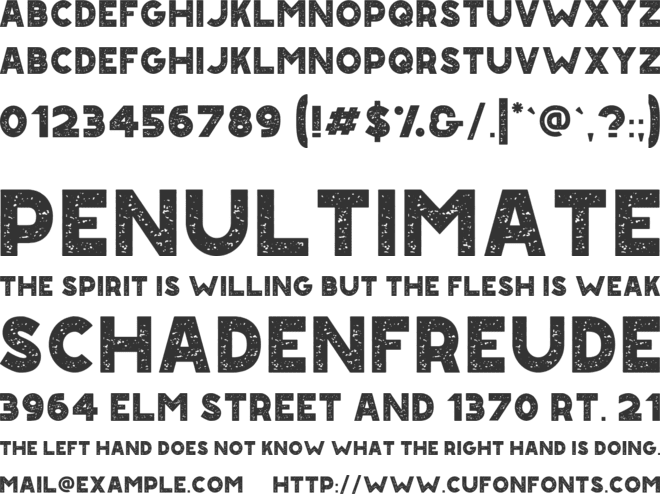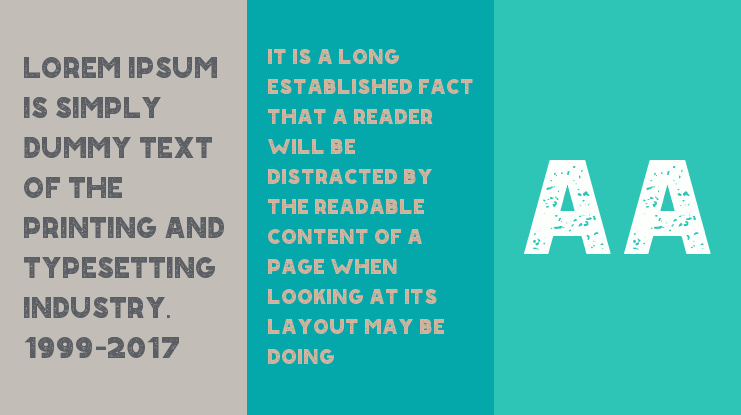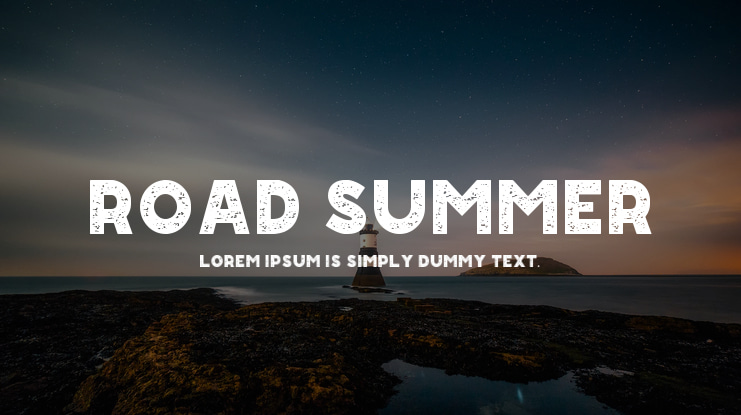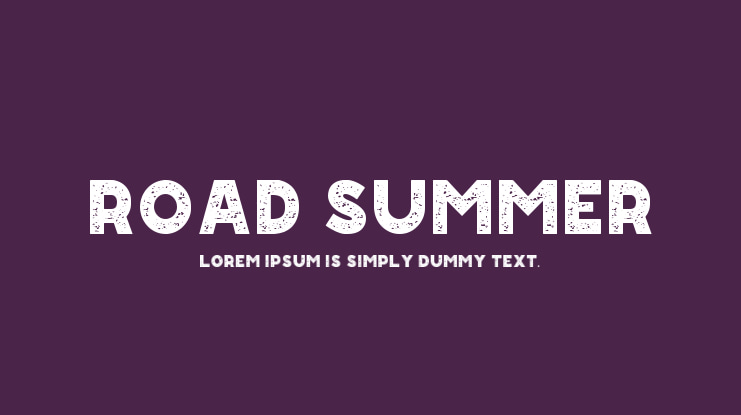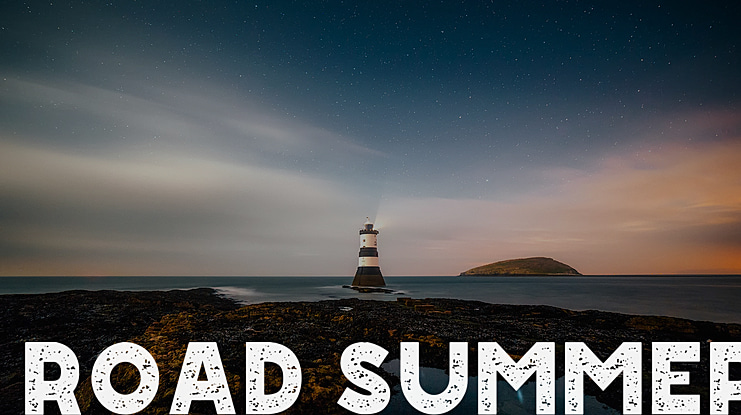
Road Summer Font Family
Display Studio
Introducing our new release, Road Summer Modern Vintage Typeface. This typeset is perfect for brand logo, invitations, greeting card, or even any kind of project. With multilingual feature and style variations, this typeface would further enhance the aestethical aspect of your work.